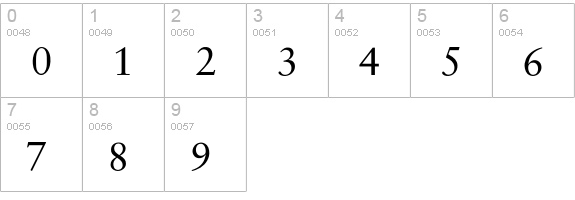
Vosges Font Details
Introducing Vosges Font, a stunningly elegant typeface that effortlessly encapsulates the essence of sophistication and timeless beauty. Crafted with meticulous attention to detail, Vosges Font showcases intricate letterforms that exude a sense of grace and refinement. With its delicate serifs and graceful curves, Vosges Font captures the eye and leaves a lasting impression. Whether used for branding, editorial design, or any creative project that demands a touch of elegance, this font is sure to elevate your work to new heights. But the best part? Vosges Font is freely available to download at FontsMarket.com. Yes, you heard it right - this exquisite typeface can now be easily accessed and utilized by designers, artists, and enthusiasts alike, without any cost. With just a few clicks, you can add this captivating font to your collection and unlock a world of possibilities. So why wait? Embrace the allure of Vosges Font and infuse your designs with a touch of timeless sophistication. Whether you're creating wedding invitations, luxury branding, or any design project that calls for an air of refinement, Vosges Font is the perfect companion. Download it now at FontsMarket.com and let this exceptional typeface inspire your creativity to new heights.